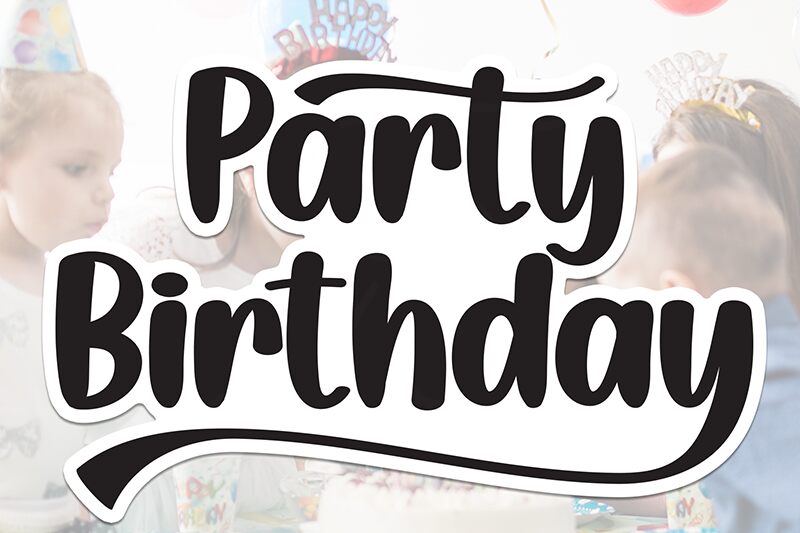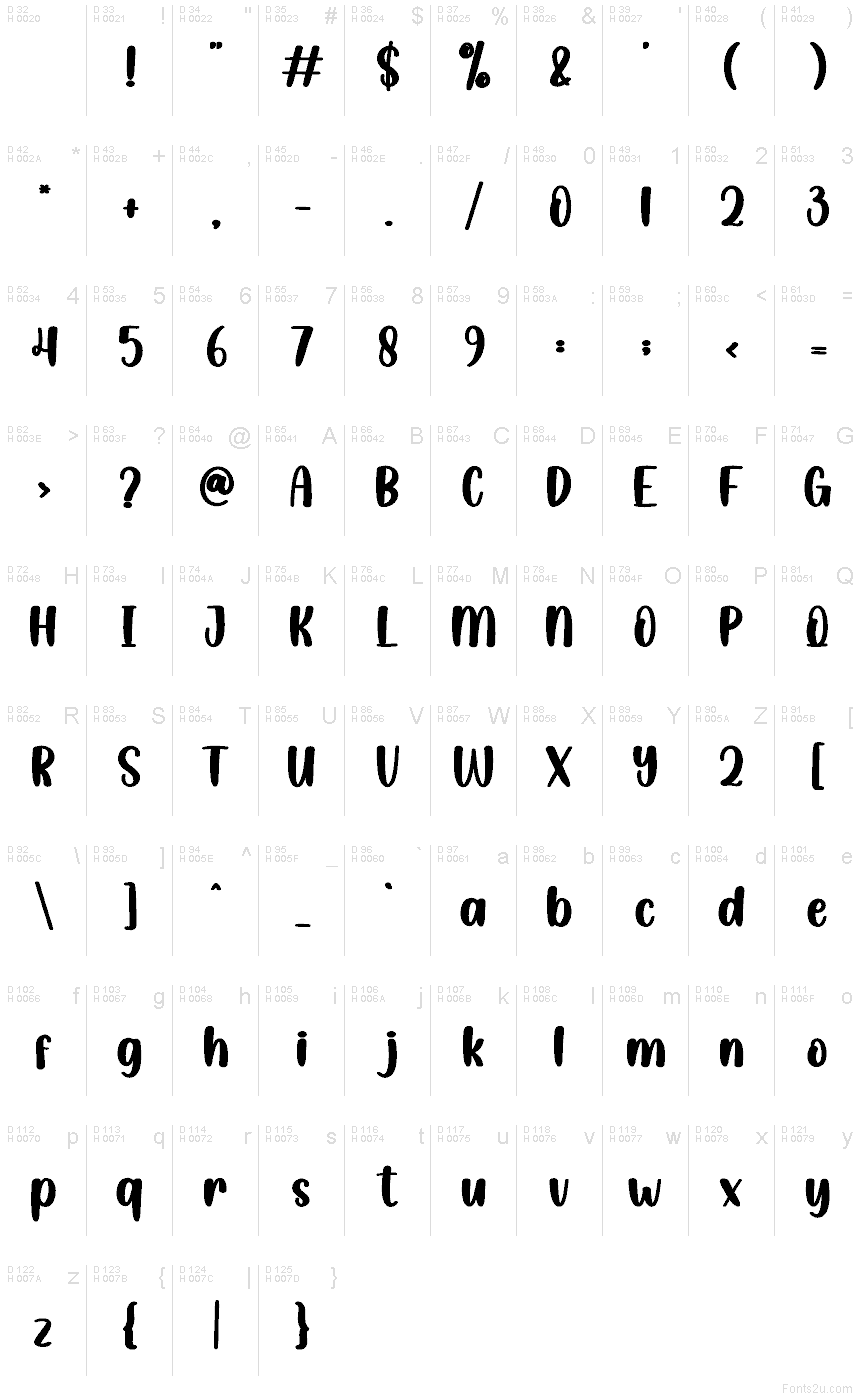
Party Birthday
Party Birthday font is a free brush script typeface carefully painted by Scratchones in bold expressive letters. It holds a casual, modern, and friendly look that brings life to every project. The energetic ambiance it offers suits celebratory contexts most including occasional cards and posters.
Use Party Birthday font for something fun such as greetings cards or posts on your social media platforms. Create special typography for badges, titles, food packaging, logos, personal branding projects and so much more!